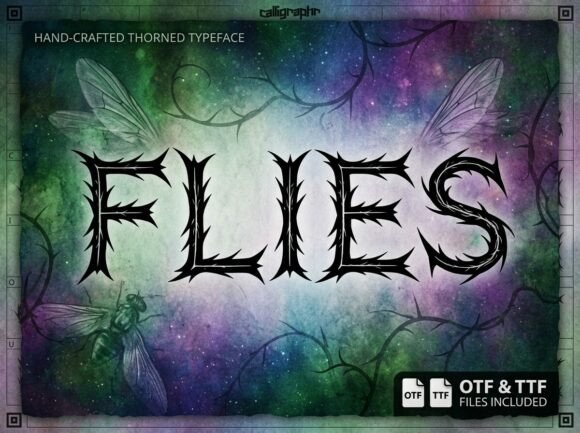
Unleash the Wild Side with Flies Font: A Sharp Display Typeface for the Fearless
In the realm of typography, few fonts capture the essence of the natural world’s dark beauty as effectively as Flies. This sharp display typeface embodies a “wild-and-wicked” soul, making it the perfect choice for designers and crafters looking to add an edge to their projects. With its bold, high-contrast letterforms and unique, hand-drawn “thorned” texture, Flies bridges the gap between organic botanical structures and aggressive heavy metal branding.
The Inspiration Behind Flies Font
Flies font draws inspiration from the intricate, often menacing, details of the natural world. Its design is characterized by a rhythmic, hand-drawn texture composed of sharp, interlocking briar-like spikes. This distinctive feature gives the font its rebellious personality and sets it apart from more traditional typefaces. The result is a font that exudes a sense of raw power and unbridled energy.
Key Features of Flies Font
• Bold, High-Contrast Letterforms: Flies font boasts sturdy, attention-grabbing letterforms that demand to be noticed. Its high-contrast design ensures that your message will cut through the noise and leave a lasting impression.
• Hand-Drawn “Thorned” Texture: The font’s unique texture, composed of sharp, interlocking spikes, adds a layer of depth and visual interest to your designs. This feature is perfect for creating a sense of tension or unease.
• Heavy Structural Weight: Flies font has a robust, substantial feel that makes it ideal for headlines, titles, and other high-impact applications.
• Rebellious Personality: Flies font is not for the faint of heart. Its bold, unapologetic design makes it perfect for brands and projects that want to challenge the status quo.
Perfect Applications for Flies Font
Flies font is a versatile typeface that can be used in a variety of contexts. Here are some of the perfect applications for this sharp display font:
• Independent Streetwear Branding: Flies font is a natural fit for streetwear brands looking to make a bold statement. Its rebellious personality and bold design make it perfect for logos, labels, and packaging.
• Alternative Music Posters: The font’s aggressive, high-energy design makes it ideal for promoting alternative music events, albums, and artists.
• Dark-Fantasy Book Titles: Flies font is well-suited for book titles that require a sense of mystery, danger, and intrigue. Its bold, gothic-inspired design will add a touch of darkness to your book covers.
• High-Impact Social Media Headers: The font’s heavy structural weight and attention-grabbing design make it perfect for social media headers that need to stand out in a crowded online landscape.
Why Choose Flies Font?
With so many typefaces available, why choose Flies font for your next project? Here are a few reasons why designers and crafters are drawn to this sharp display font:
• Unique Design: Flies font offers a distinctive, one-of-a-kind design that will set your projects apart from the competition.
• High-Impact Legibility: The font’s bold, high-contrast design ensures that your message will be seen and remembered.
• Versatility: Flies font can be used in a variety of contexts, from streetwear branding to book titles and social media headers.
Flies font is a sharp display typeface that embodies the dark beauty of the natural world. Its bold, high-contrast letterforms and unique, hand-drawn “thorned” texture make it perfect for designers and crafters looking to add an edge to their projects. Whether you’re working on independent streetwear branding, alternative music posters, dark-fantasy book titles, or high-impact social media headers, Flies font is the premier choice for those who want to unleash their wild side.
So why settle for a generic, run-of-the-mill typeface when you can choose a font that truly makes a statement? Embrace the wild-and-wicked soul of Flies font and take your designs to the next level.